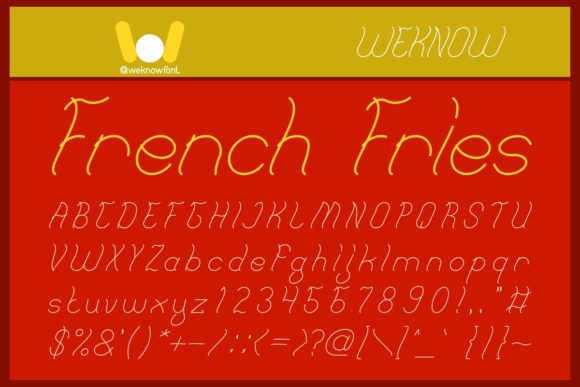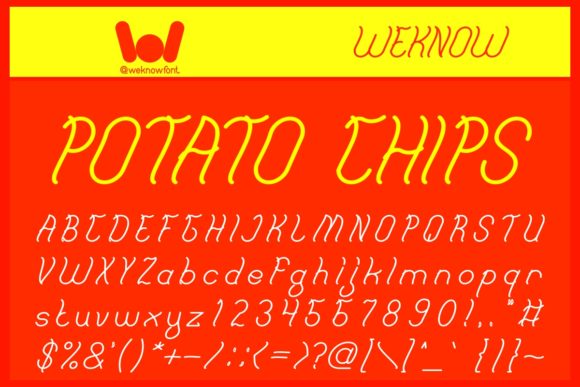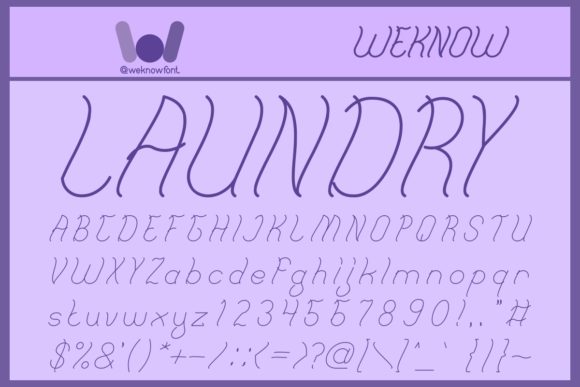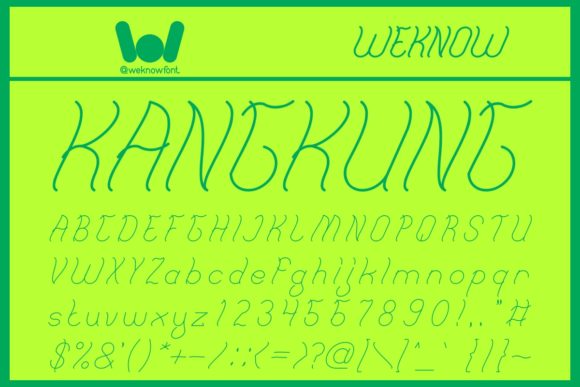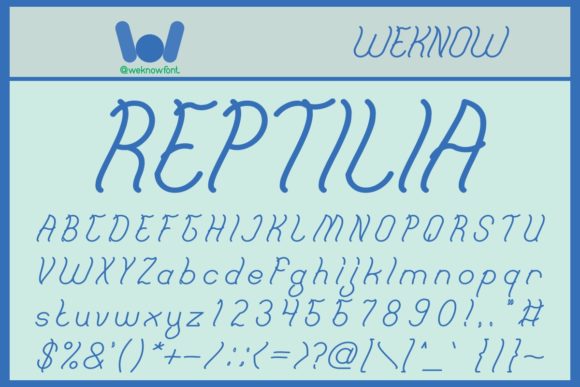
French Fries Font
About French Fries Font
Absolutely! French Fries is not just a font; it’s a creative powerhouse that adds a distinctive flair to your design projects. Its unique and captivating script style brings an element of intrigue that sets your work apart from the rest.
Imagine using French Fries in your branding efforts. Whether it’s for a trendy restaurant, a hip fashion brand, or a modern tech startup, this font injects a touch of playfulness while maintaining a professional appeal. The fluid strokes and unconventional letterforms create a memorable brand identity that resonates with your target audience.
Headings and titles become an art form with French Fries. Its unconventional and eye-catching design instantly grabs attention and draws readers in. From posters and flyers to website headers, the font’s dynamic script adds an energetic and inviting vibe to your designs.
When it comes to special occasions, French Fries adds a dash of excitement to wedding designs and invitations. Picture the font gracing wedding invites with its lively curls and loops, setting the tone for a joyful celebration. It brings a modern twist to traditional designs, making your invitations a true reflection of the couple’s personality.
The uniqueness of French Fries doesn’t stop at events; it extends to logos and labels as well. Craft logos that tell a story, capturing the essence of your brand with its distinctive style. Labels for products or packaging get a creative boost, making them stand out on the shelves and in the minds of consumers.
One of the font’s greatest strengths is its versatility. From elegant signatures to attention-grabbing headlines, French Fries adapts seamlessly to various design contexts. Its ability to blend fun with sophistication makes it a go-to choice for designers looking to add a touch of character to their projects.
The beauty of French Fries is that it takes your designs beyond the ordinary. Its intriguing script style sparks curiosity and engagement, making your work memorable and impactful. So, whether you’re designing for branding, events, logos, or any creative endeavor, French Fries is the secret ingredient that transforms your designs from ordinary to extraordinary.